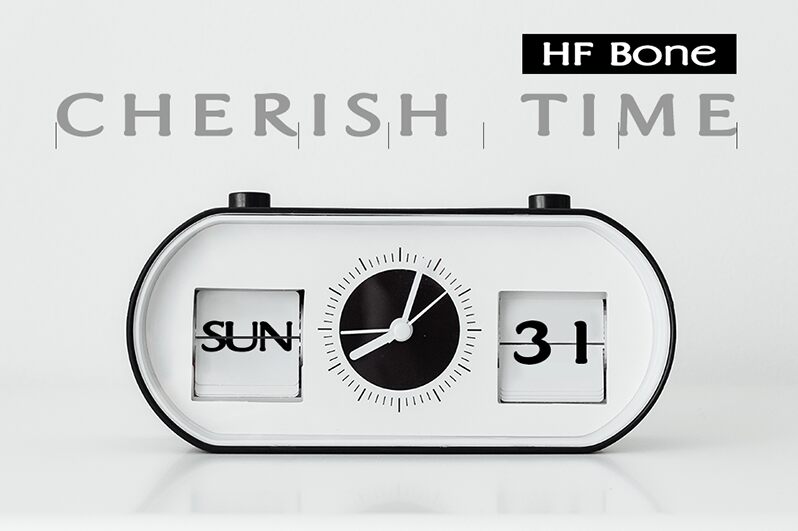
HFBone font is a striking creation by HyFont Studio that radiates individuality and flair. Its expanded form lends a sense of boldness, making each character stand out with remarkable presence. The design intricately balances modern aesthetics with a hint of charm, perfect for capturing attention.
Visually captivating, HFBone's playful curves and distinctive shapes evoke creativity and personality. This font shines in contexts where vibrancy is essential-think branding for youthful products, eye-catching headlines in editorial design, or dynamic posters that demand viewer engagement.
Ideal for projects that require both readability and unique stylistic expression, HFBone offers versatility across print and digital applications alike. Its character invites users to explore innovative possibilities while making an unforgettable statement.
HFBone